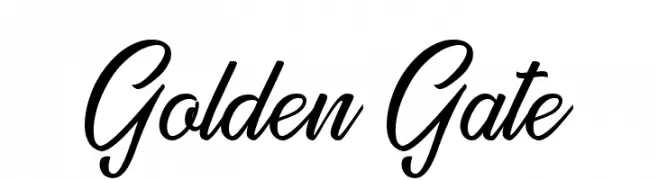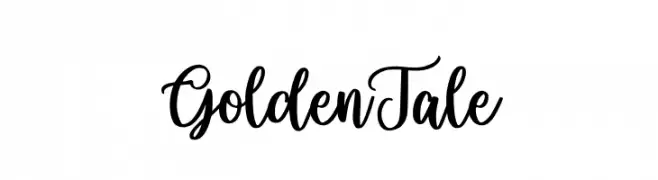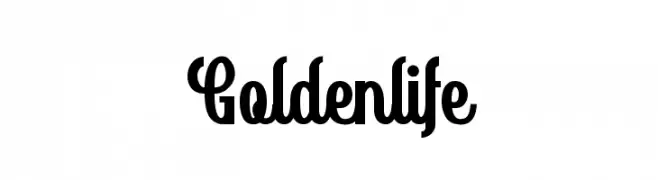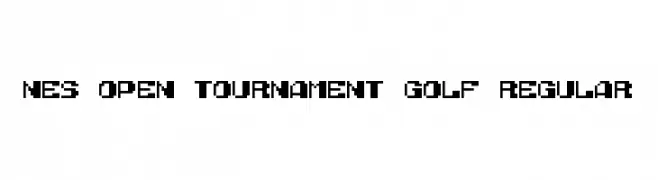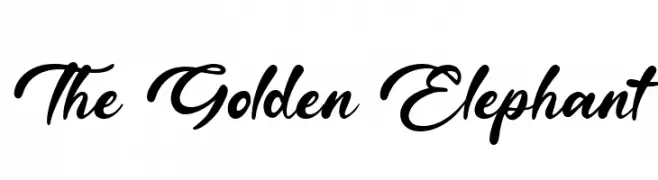
A playful handwritten font with smooth, flowing curves and a casual style.
A sophisticated script font with elegant loops and swashes.
A decorative cursive font with elegant loops and swirls.
An elegant script font with flowing, interconnected characters and graceful curves.
An elegant, flowing script font with a sophisticated, handwritten style.
A dynamic and elegant script font with flowing curves and artistic flair.
A bold, pixelated font inspired by classic 8-bit video games.
A bold, decorative font with a modern vintage flair, perfect for creative projects.
A graceful and elegant script font with connected characters and a cursive style.
A lively handwritten font with dynamic strokes and a playful, personal touch.